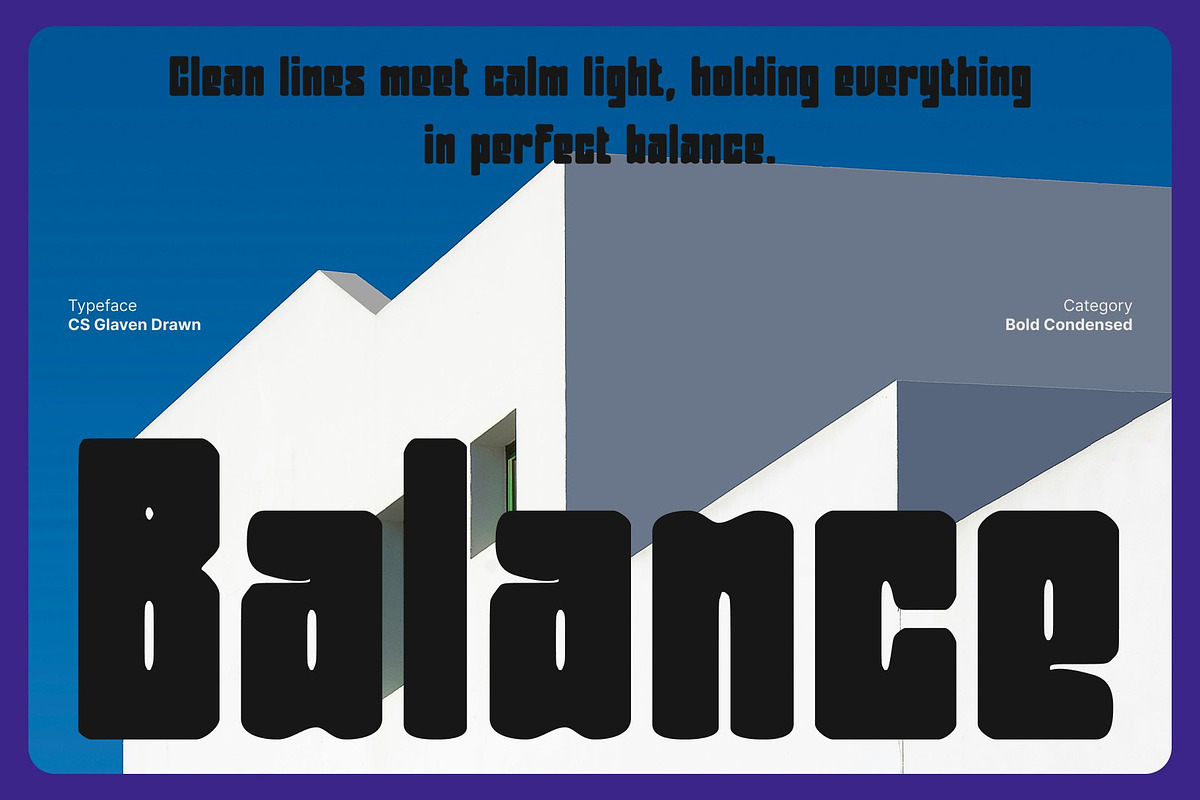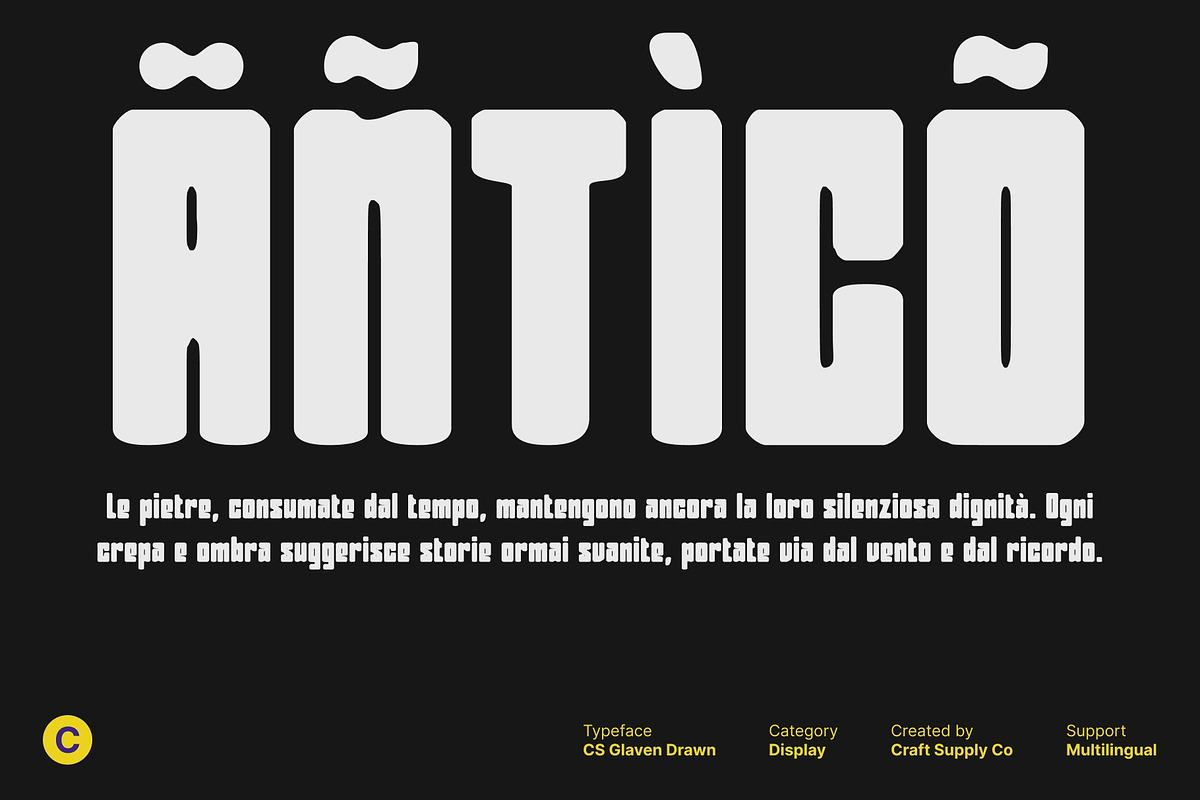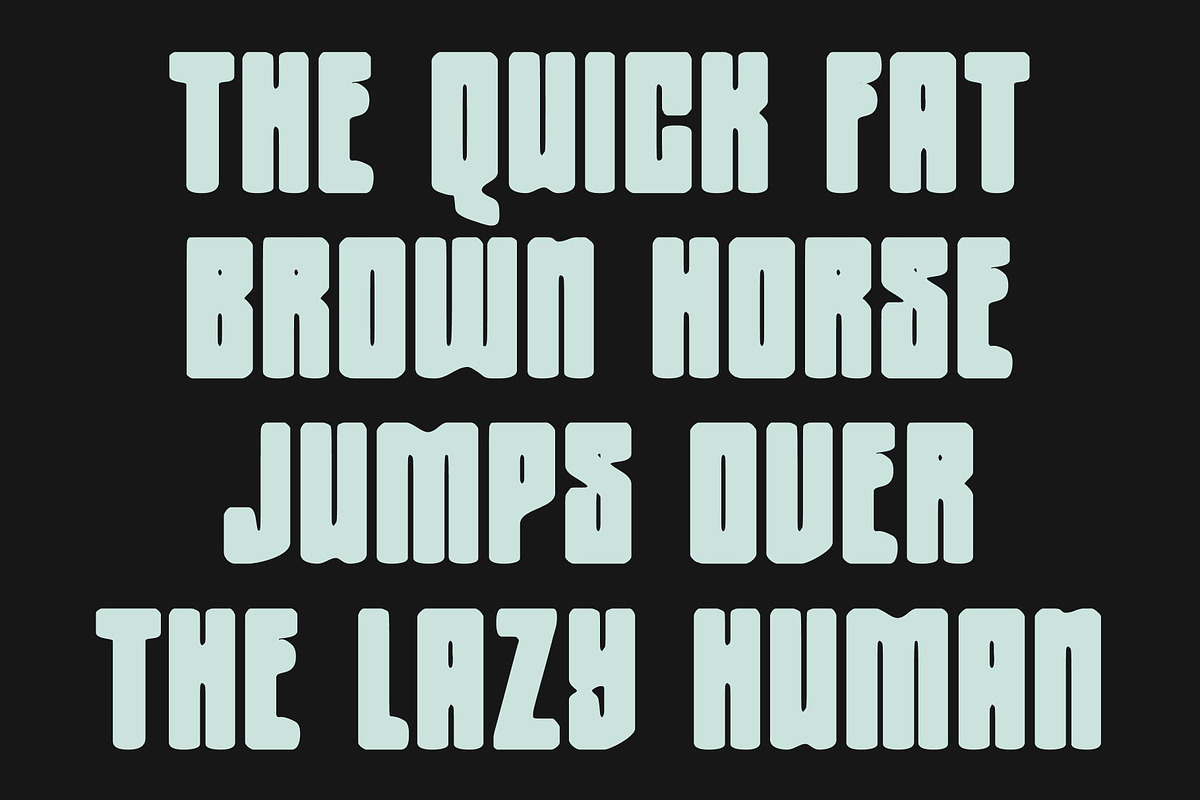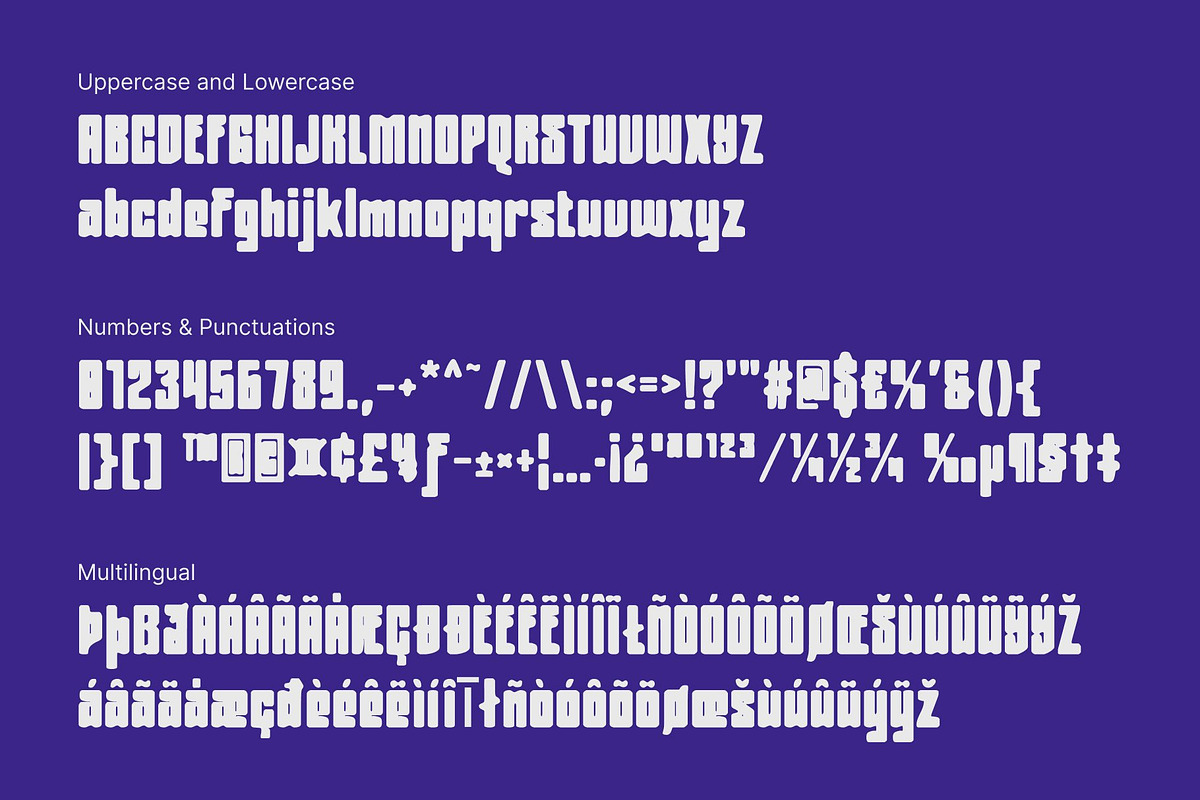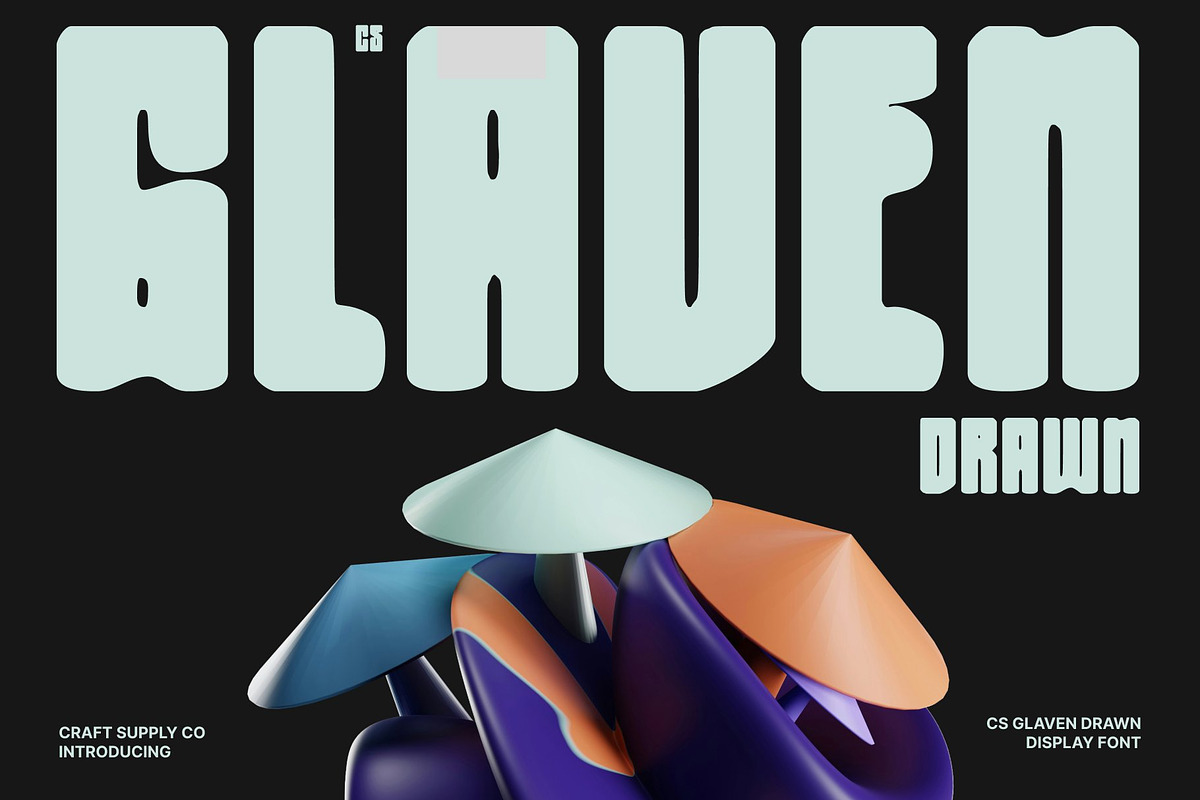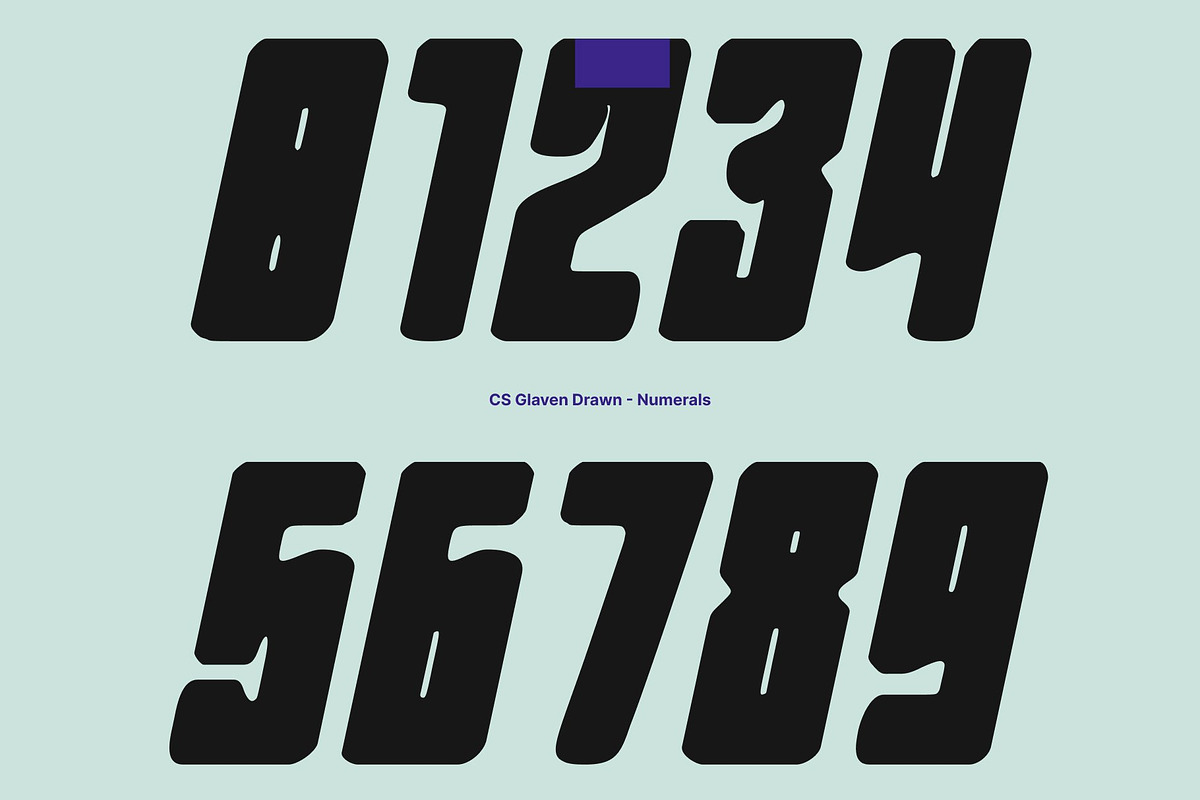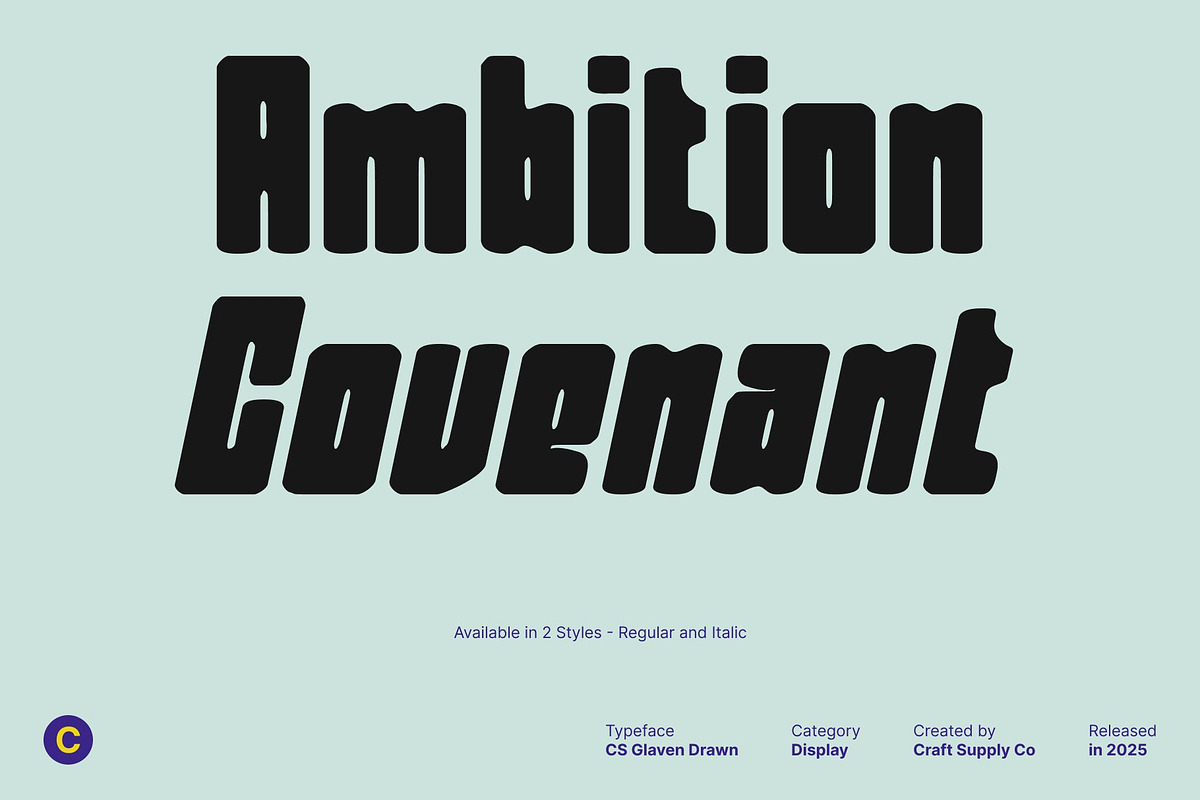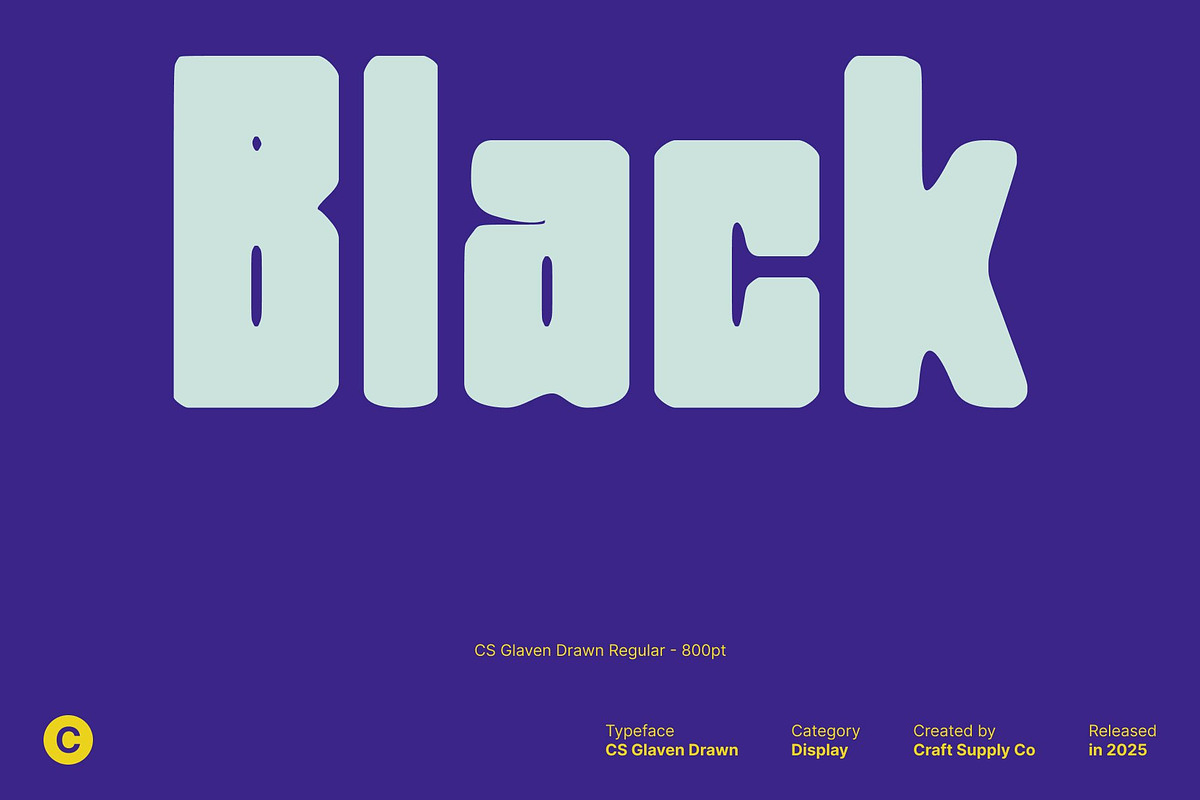
CS Glaven Drawn
CS Glaven Drawn – Bold Font: Strength with a Friendly Touch
Bold Structure for Maximum Impact This is a bold display font crafted to make a strong visual statement. Its thick, confident letterforms deliver maximum impact, ensuring headlines, posters, branding, and other visual designs instantly capture attention. Enhanced with a hand-drawn effect, each character gains texture and personality, giving your designs an expressive, dynamic edge while maintaining readability and clarity.
Rounded Edges for a Modern and Approachable Feel The slightly rounded edges of soften its bold, assertive structure, creating a balance between strength and approachability. This subtle design detail adds warmth and friendliness, making it ideal for projects that want to combine professionalism with a welcoming aesthetic.
Versatile for Contemporary Design Needs This font offers versatility for a wide range of applications. From corporate branding and product packaging to social media graphics and editorial layouts, its clean, adaptable structure ensures consistent clarity and impact. The font’s bold weight, friendly curves, and hand-drawn details make it suitable for modern designs that need both authority and charm.
Clear, Stylish, and Expressive Typography More than just bold, combines strength, style, and personality. Its confident presence and textured forms make every message engaging and memorable. Perfect for designers seeking a font that communicates clearly while adding character, delivers a balanced mix of power, friendliness, and artistic flair.
- CS Glaven Drawn Regular
- CS Glaven Drawn Italic